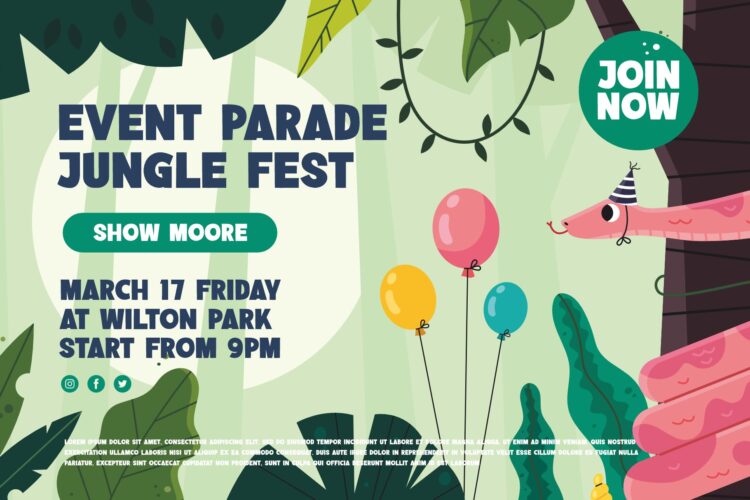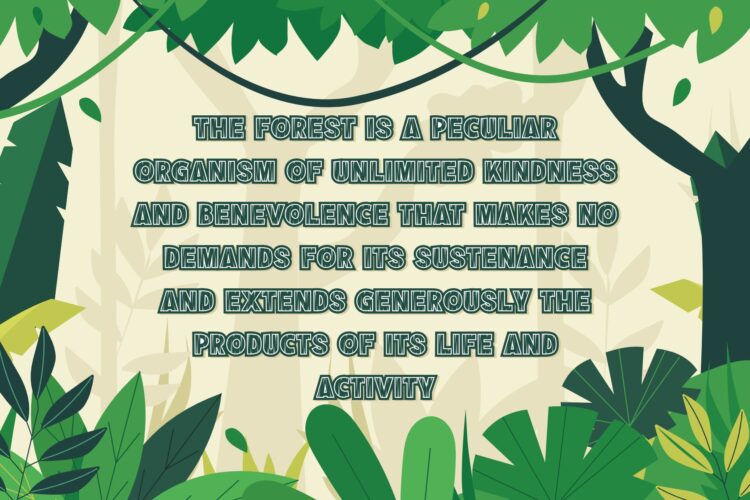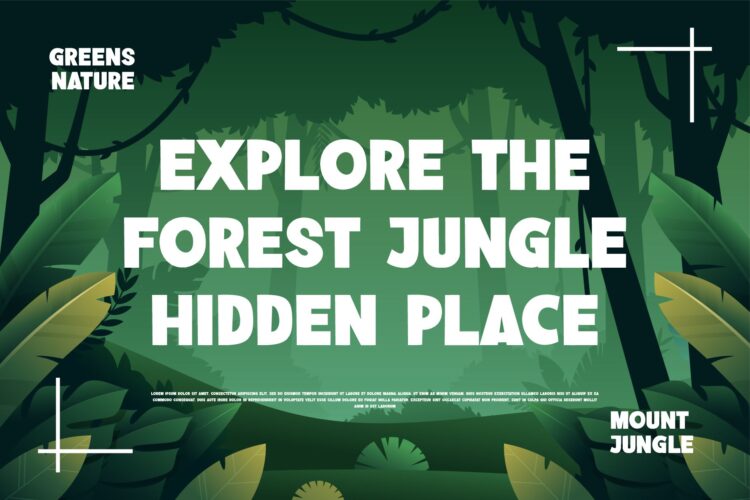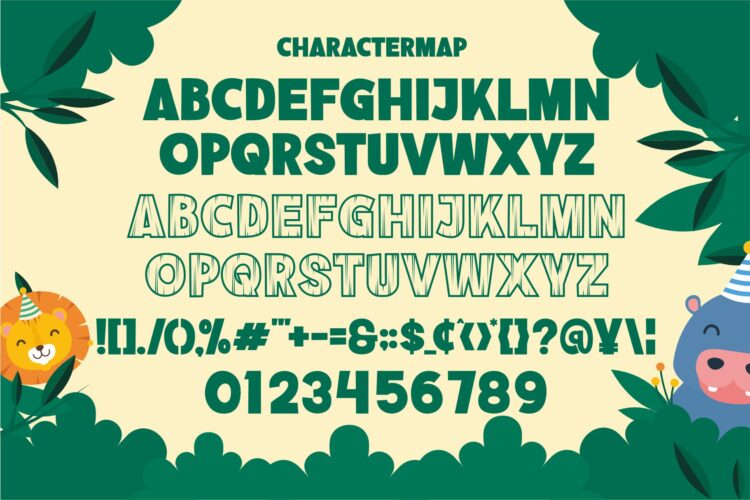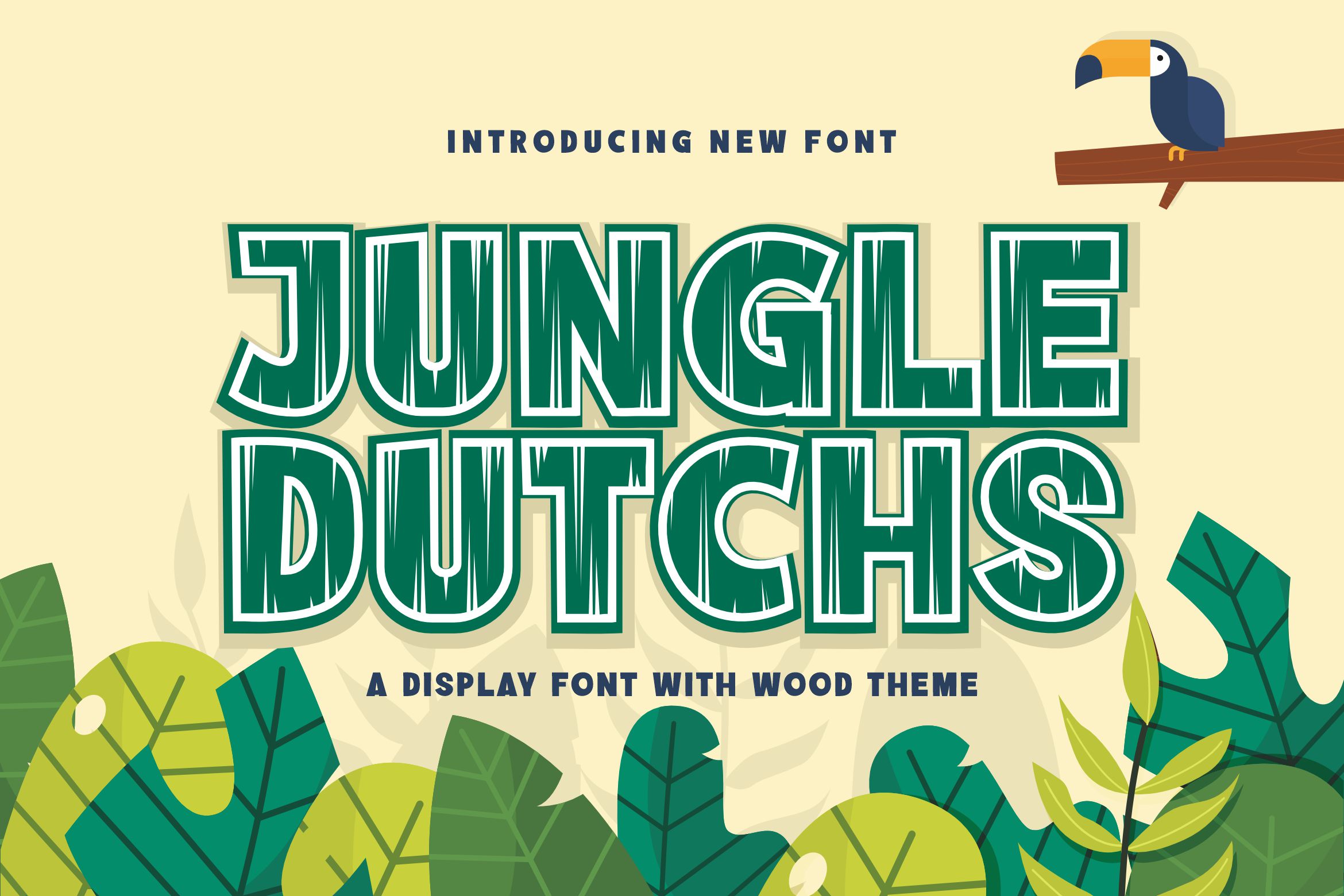
Introducing Jungle Dutch The New Bold Unique Display Font is a modern, trendy, bouncy and cute display font. It has a unique character with wood theme. It is perfect to be combined with invitation card designs, company logos, movie titles, movie names, business cards, book titles, brand names and various other designs.